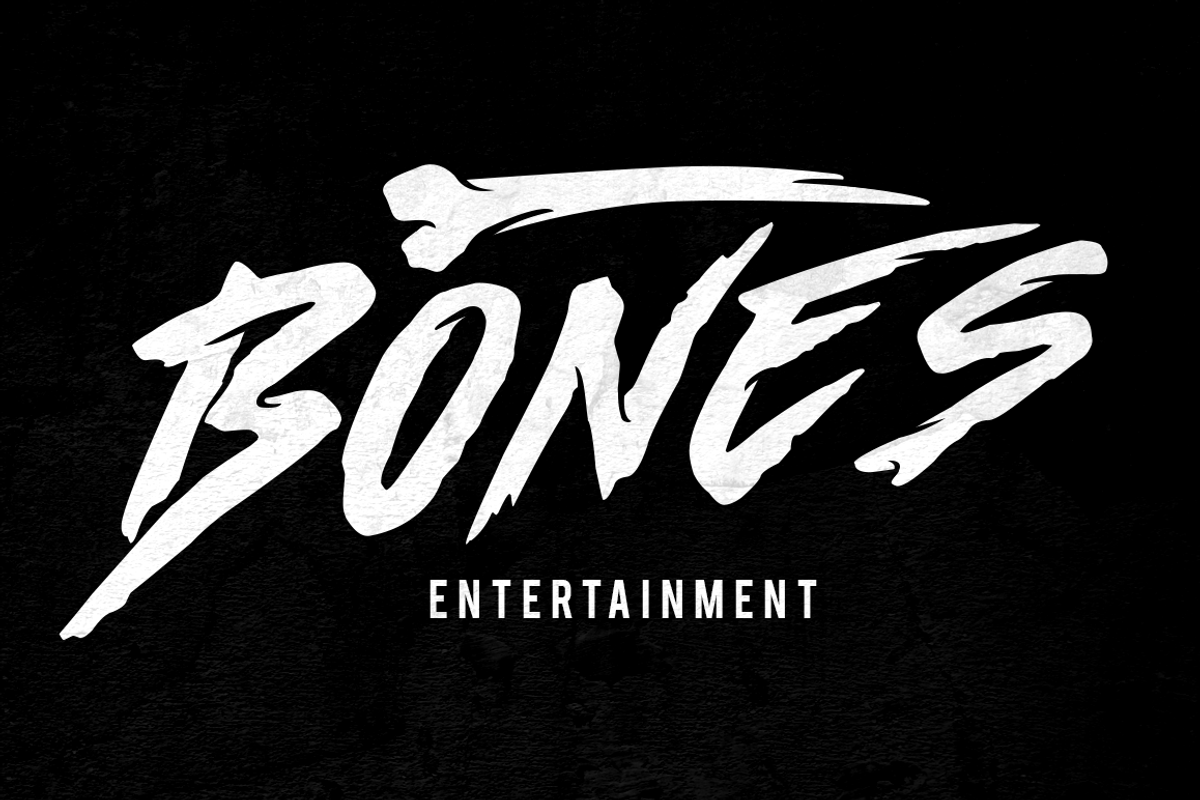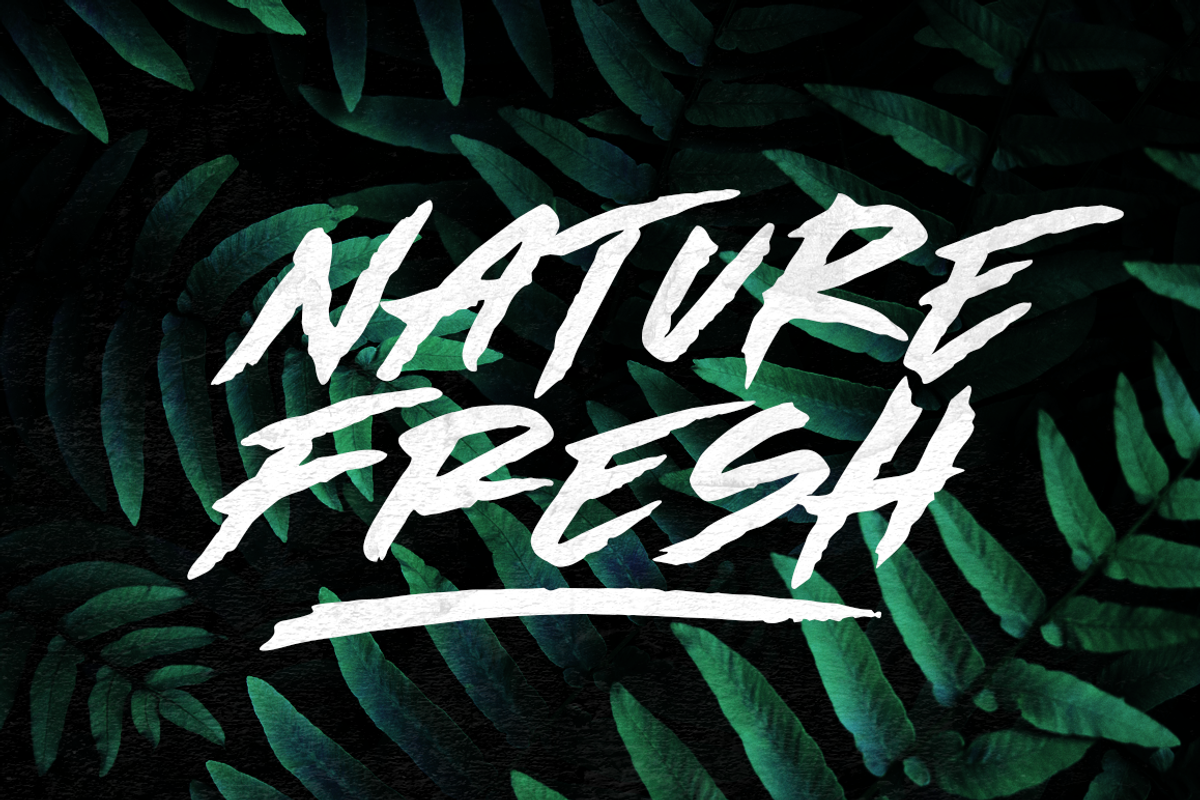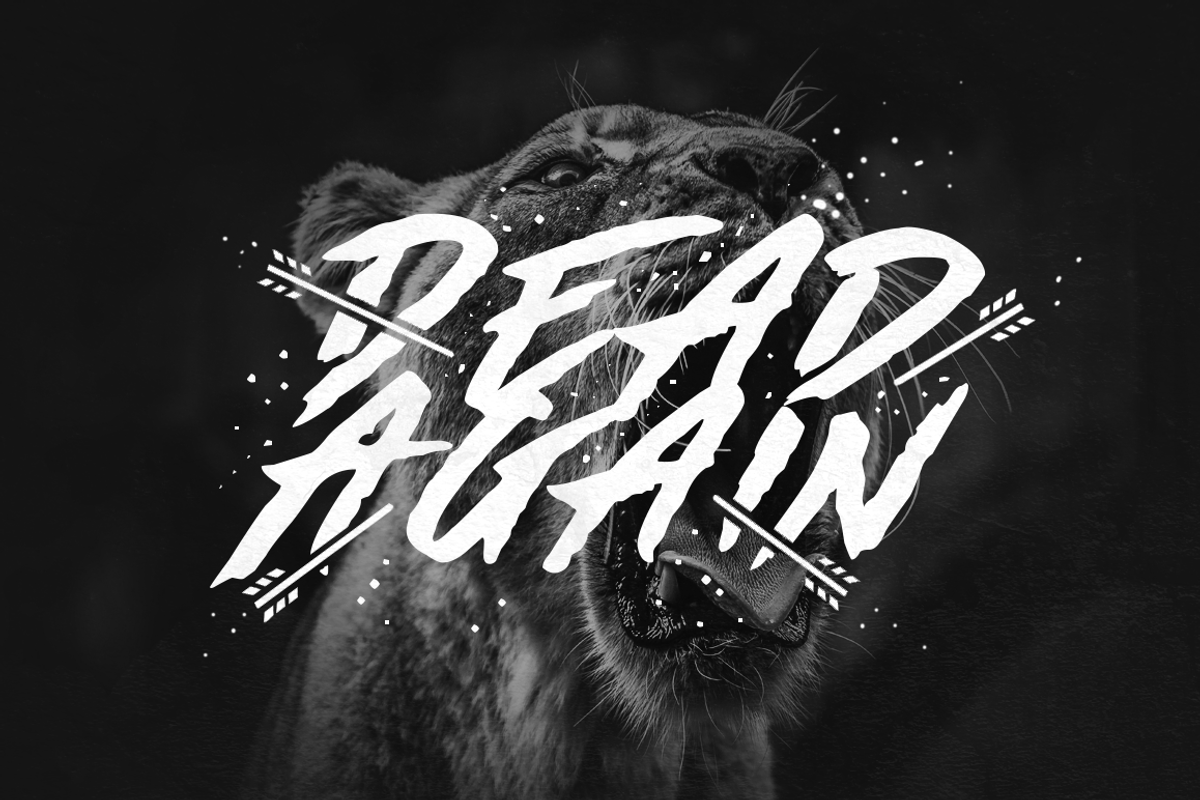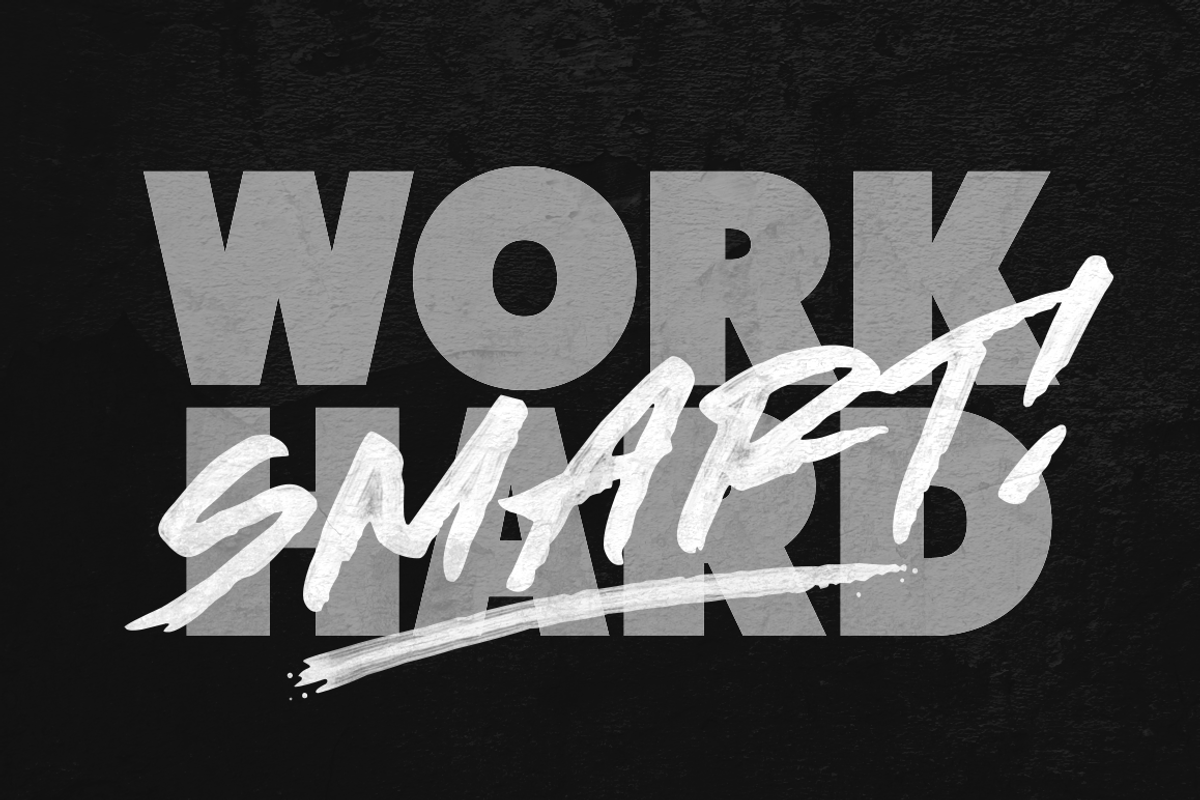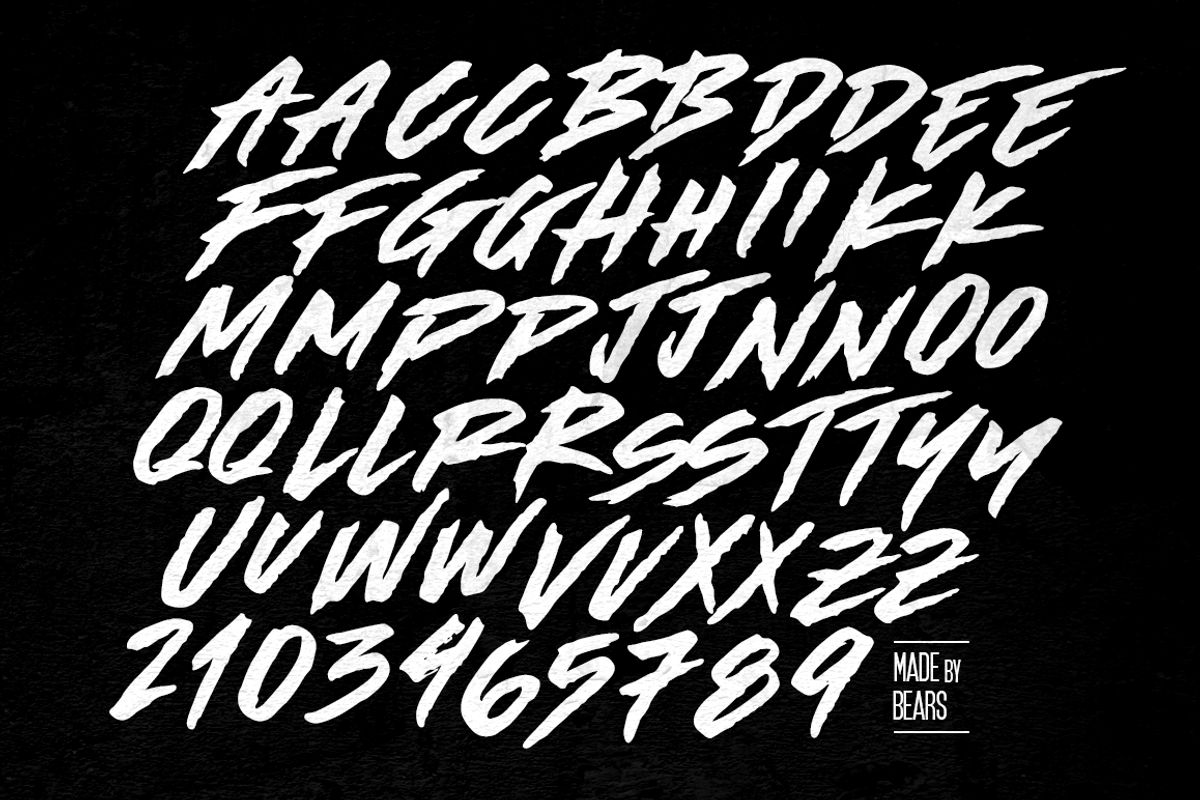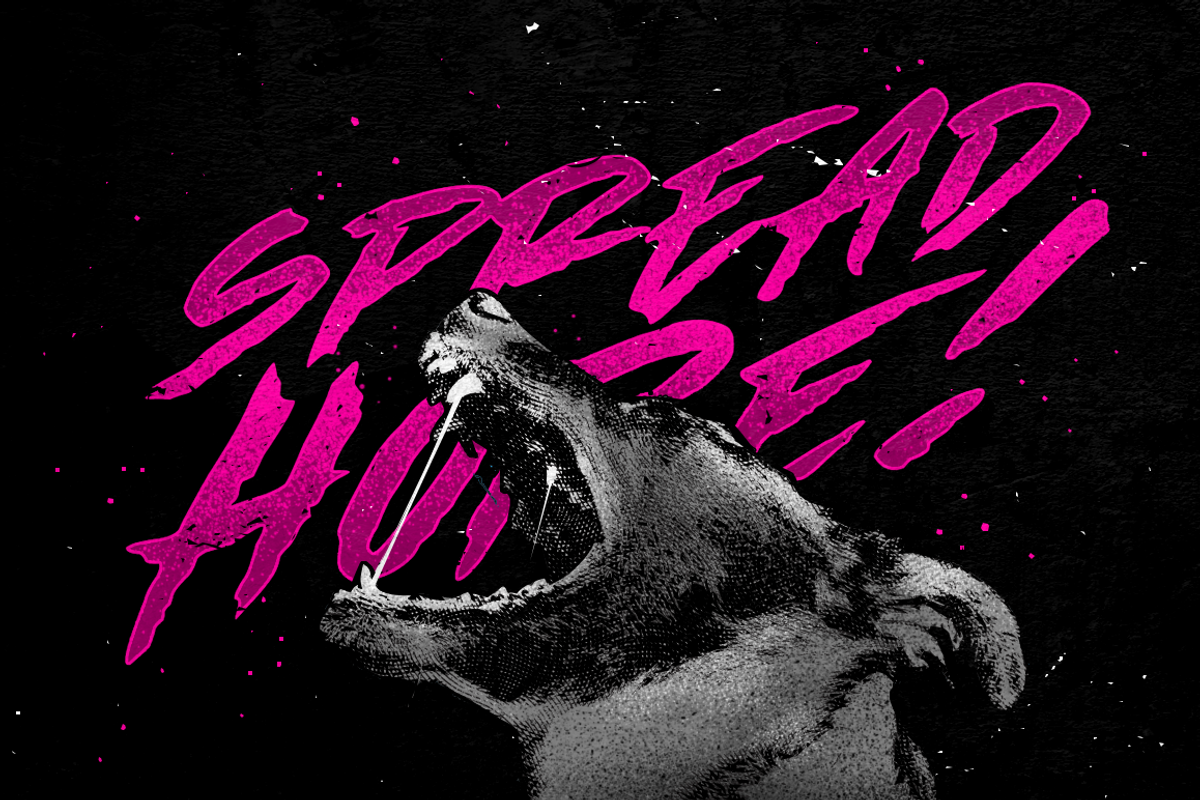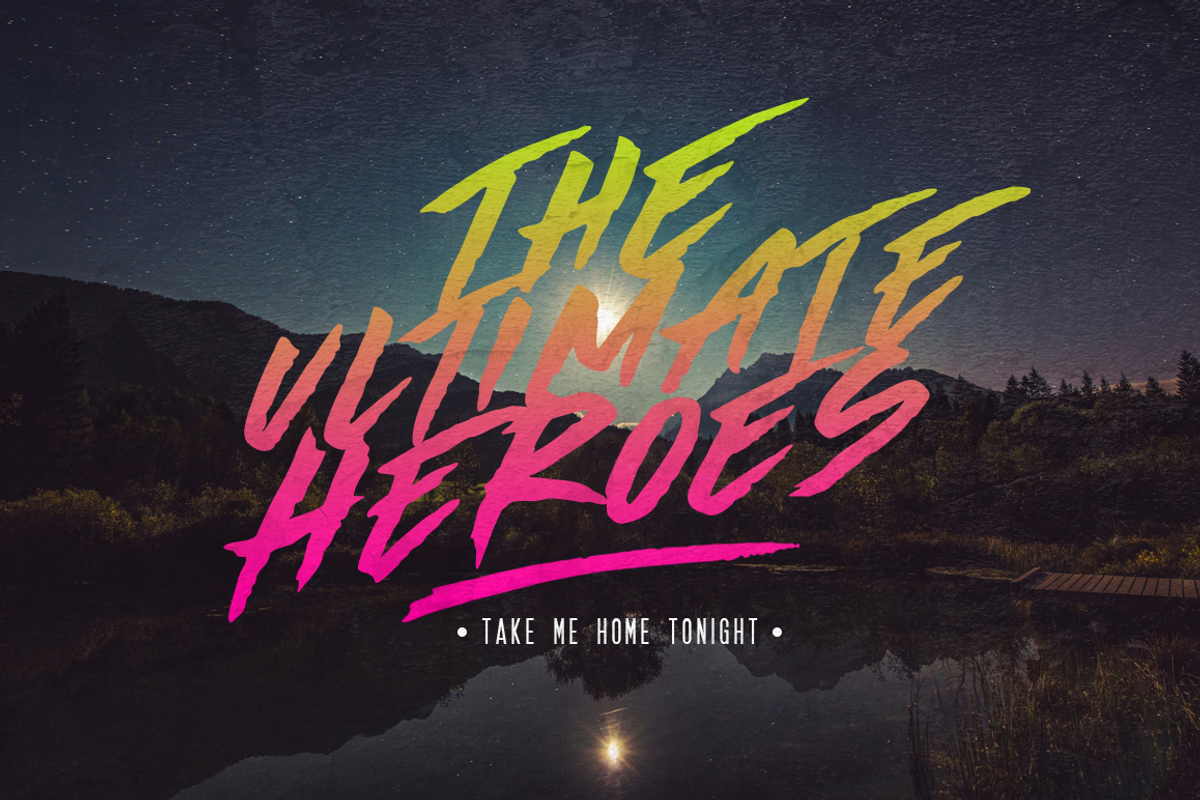
Made By Bears Font
Branding must come with an attitude. Whether promoting your band or making activist posters online, treat your art like it will gonna bite something. Our new creation Made by Bears will hunt every latent designs and equip it with all the spikes it needed!
Made By Bears Font by Bears - Font, a Font by The Branded Quotes fits naturally into Branding, posters, packaging, typography.